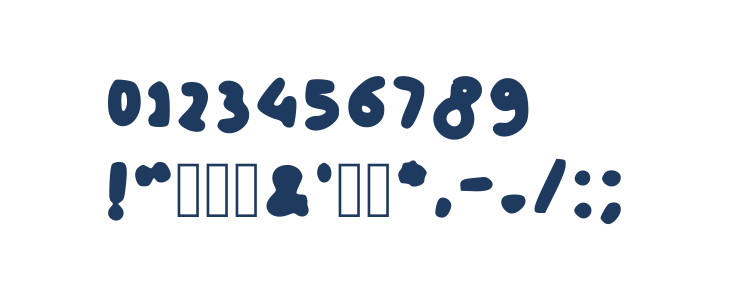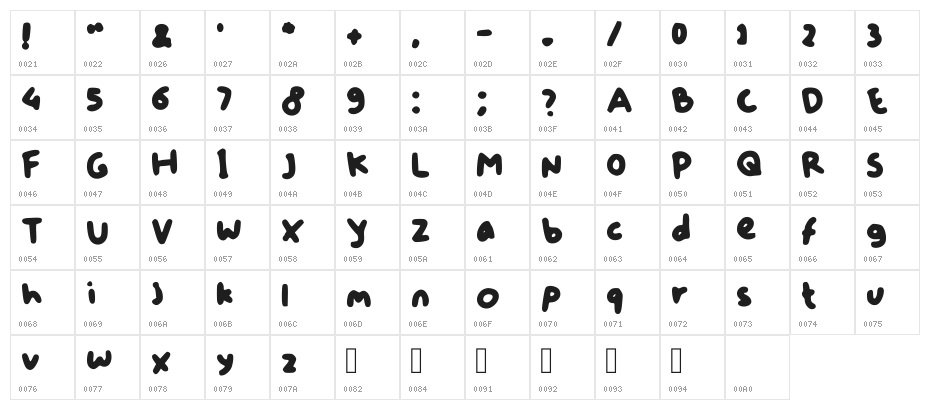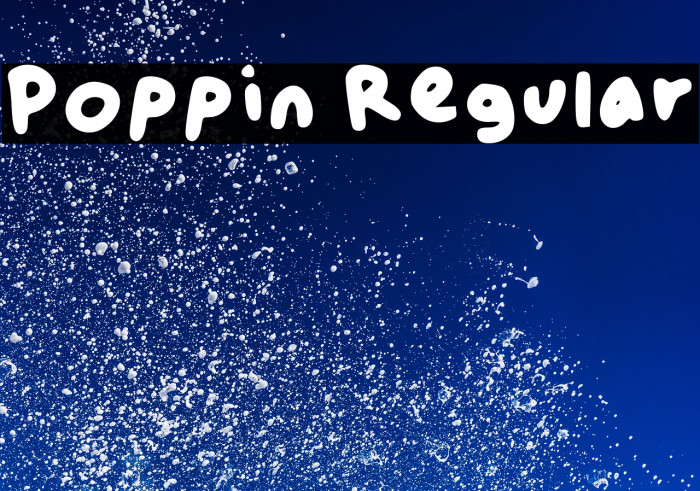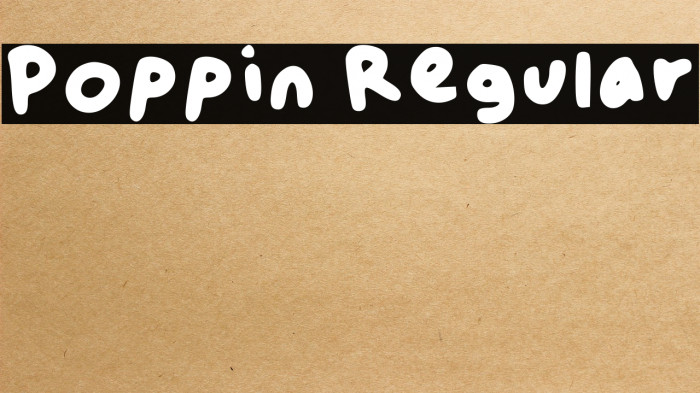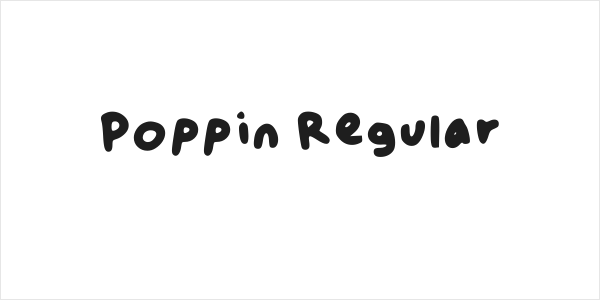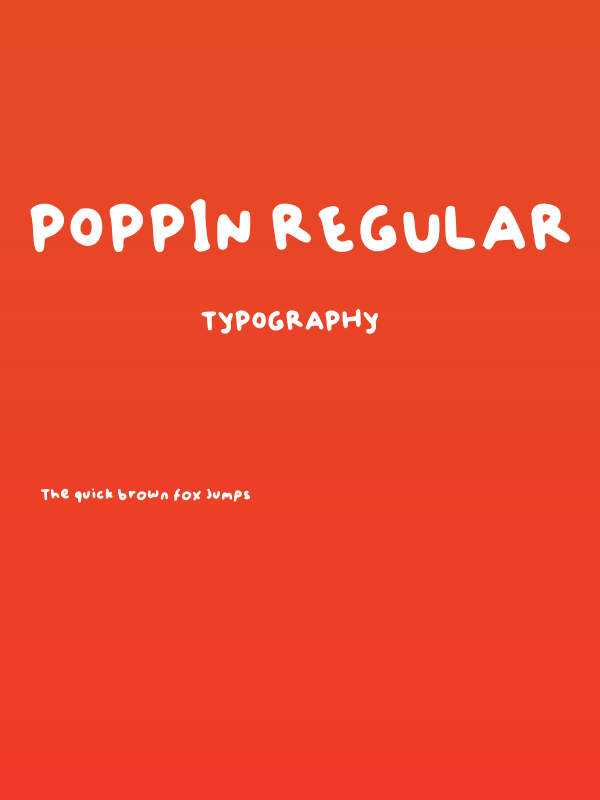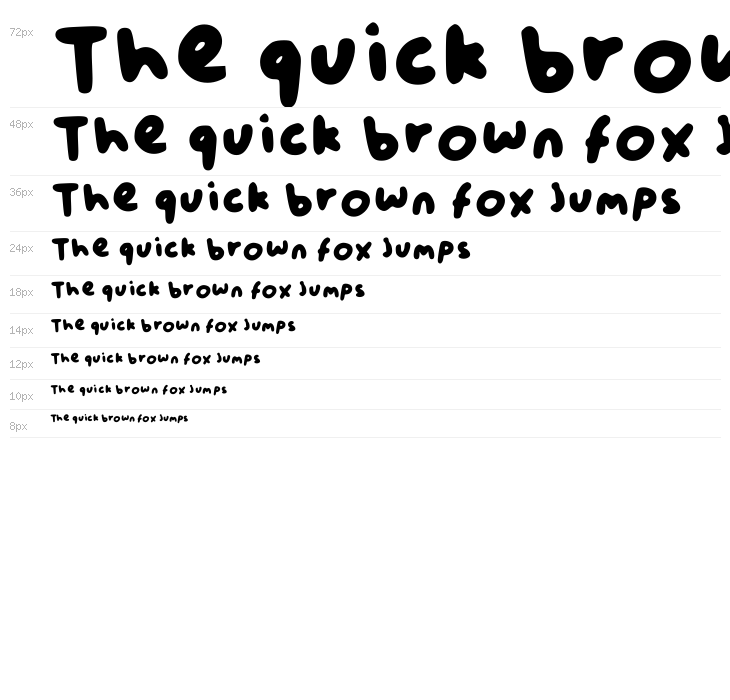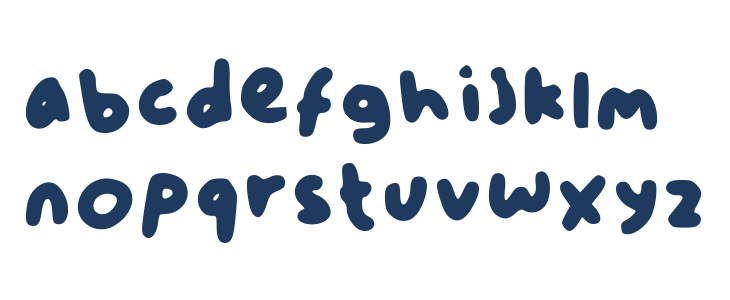
Poppin Regular Font
Poppin Regular Description
This playful and bold font features rounded, bubbly characters that convey a sense of fun and approachability. The letters are thick and have a consistent stroke width, giving them a strong presence on the page. The overall style is informal and friendly, making it ideal for projects that aim to capture a youthful or whimsical vibe. The characters are evenly spaced, contributing to a clean and legible appearance. This font's unique style makes it suitable for creative and casual applications.